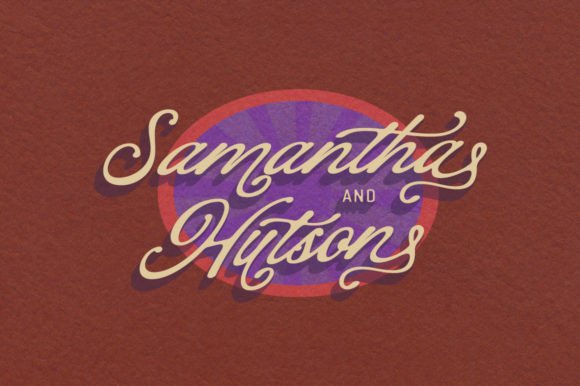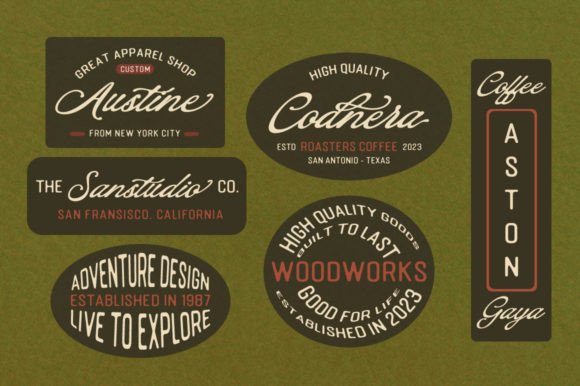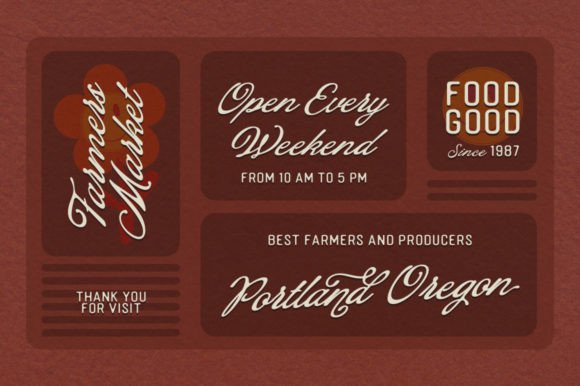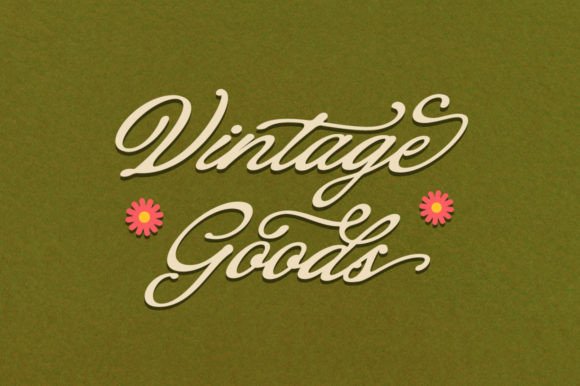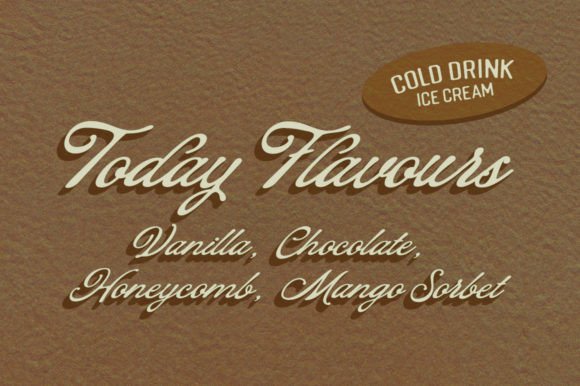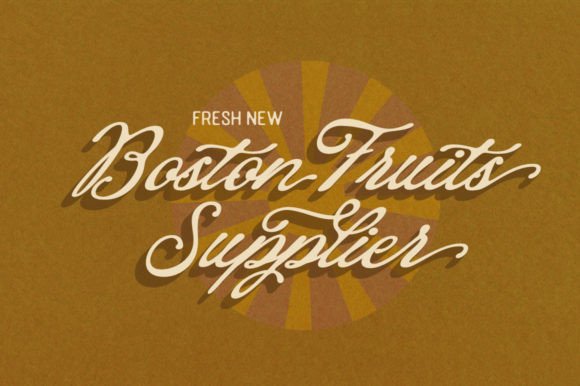
Cadisone Font: A Timeless Vintage Script for Elegant Designs
In the world of typography, fonts play a crucial role in conveying the tone and personality of a brand or design. For those seeking a vintage script font that exudes charm and nostalgia, Cadisone is an excellent choice. This beautiful font is designed to create a warm, inviting feel, making it perfect for designers and crafters looking to add a touch of sophistication to their work.
The Charm of Cadisone Font
Cadisone is a vintage script font that boasts a charming and nostalgic design. Its elegant style is reminiscent of classic typography, evoking memories of antique posters, vintage advertisements, and classic logos. The font’s unique character lies in its ability to balance playfulness with sophistication, making it an excellent choice for a wide range of design projects.
Key Features of Cadisone Font
• Elegant Script Style: Cadisone features a beautiful, flowing script style that adds a touch of elegance to any design.
• Vintage Charm: The font’s vintage design gives it a unique, nostalgic feel that’s perfect for creating warm and inviting designs.
• Catchy and Sophisticated: Cadisone’s catchy and sophisticated style makes it ideal for headlines, logos, advertisements, and other design projects where you want to make a lasting impression.
• Highly Versatile: The font is highly versatile and can be used for a wide range of design projects, from branding and advertising to packaging and signage.
Uses of Cadisone Font
Cadisone is a highly versatile font that can be used in a variety of design projects, including:
• Branding and Logo Design: Use Cadisone to create a unique and memorable logo that reflects your brand’s personality and values.
• Advertising and Marketing: The font’s catchy and sophisticated style makes it perfect for creating eye-catching advertisements and marketing materials.
• Packaging Design: Add a touch of elegance to your product packaging with Cadisone’s beautiful script style.
• Signage and Display: Use Cadisone to create stunning signage and display materials that grab attention and leave a lasting impression.
Tips for Using Cadisone Font
Cadisone is a timeless vintage script font that offers a charming and nostalgic design, making it perfect for creating warm and inviting designs. With its elegant style, catchy and sophisticated charm, and high versatility, Cadisone is an excellent choice for designers and crafters looking to add a touch of sophistication to their work. Whether you’re creating a brand logo, advertisement, or packaging design, Cadisone is sure to make a lasting impression.